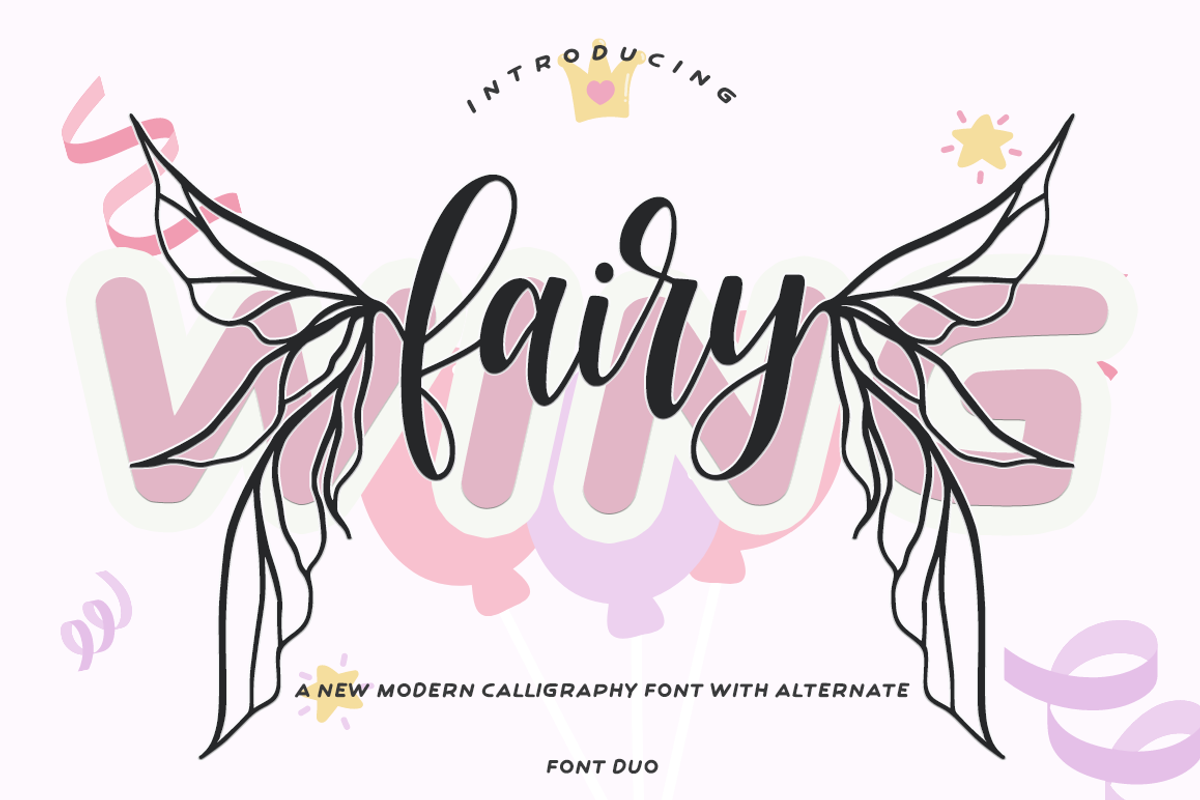
Fairy Wing Font Free Download is a whimsical and enchanting typeface designed to add a magical touch to your designs. With its delicate, flowing strokes and charming curves, Fairy Wing is perfect for fantasy-themed projects, children’s books, magical branding, party invitations, and creative social media content.
This font captures the light, airy essence of fairytales and dreams, making it ideal for designs that need a touch of elegance and playfulness. Whether you're crafting a whimsical logo, a fantasy book cover, or festive event signage, Fairy Wing brings an ethereal, delightful feel to your typography.